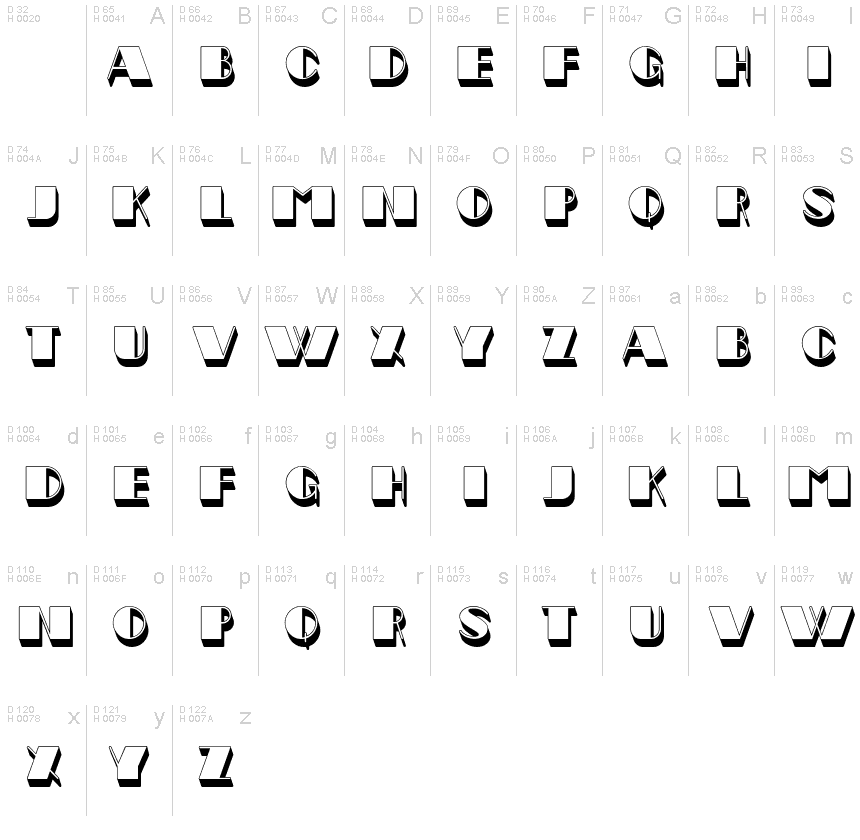
Golem Regular
Golem, a display font designed by Vladimir Nikolic, is the perfect choice for any project that requires a touch of extra-boldness and vintage charm. With its 3d retro style and expanded width, Golem is sure to make your designs pop. This versatile font is suitable for a wide range of projects, from bold headlines on posters to eye-catching logos on packaging. Whether you're creating a retro-inspired website or designing an album cover for your band, Golem's unique style will elevate your project to the next level. Try it out and see for yourself!